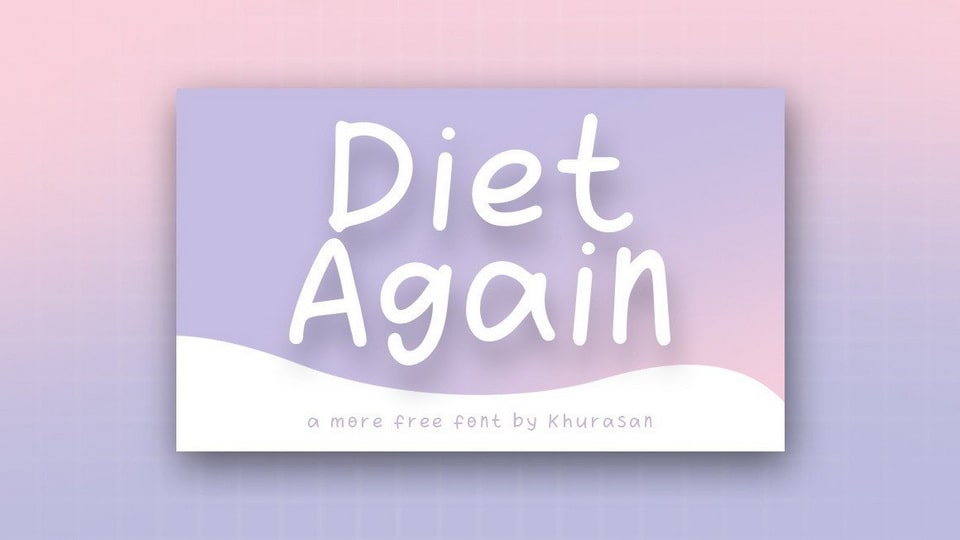
Feb 4, 2025Script & HandwrittenDiet Again Font Diet Again is a simple and cute handwritten font. With its natural look the font is perfect for posters, logos, magazines, book covers, banners, and many more. Font DetailsDesigned by: Khurasan (Syafrizal)WebsiteLicense: Free for commercial use Download Diet Again FontFile size: 170.84 KBCreated: February 16, 2025Updated: February 16, 2025 Download Explore similar fonts Milky Again Font Bakula Font Gotta Illusy Font Family Borghan Font Billy Font Cocktail Party Font # Casual# Comic# Hand-drawn# Handwriting More fonts by Khurasan (Syafrizal)Duckname FontSave Lemon FontJengkol FontShowclick FontJanuary Snack FontVontens FontPisang FontDogfiles Font